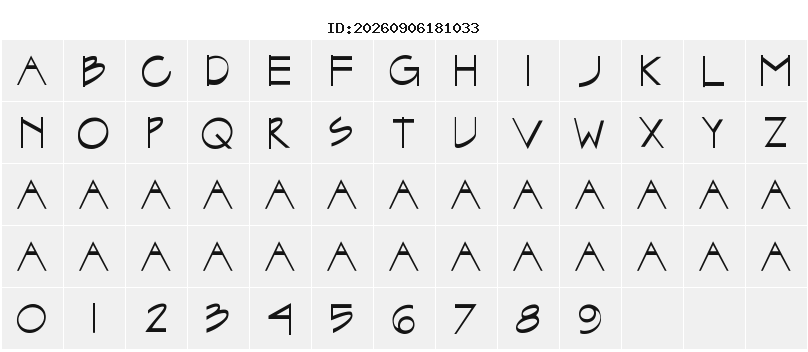
About TK-ARCHITECT.ttf
TK-ARCHITECT.ttf is a modern, elegant sans-serif font designed for ultimate readability and visual harmony. Perfect for branding, headlines, web design, and print materials.